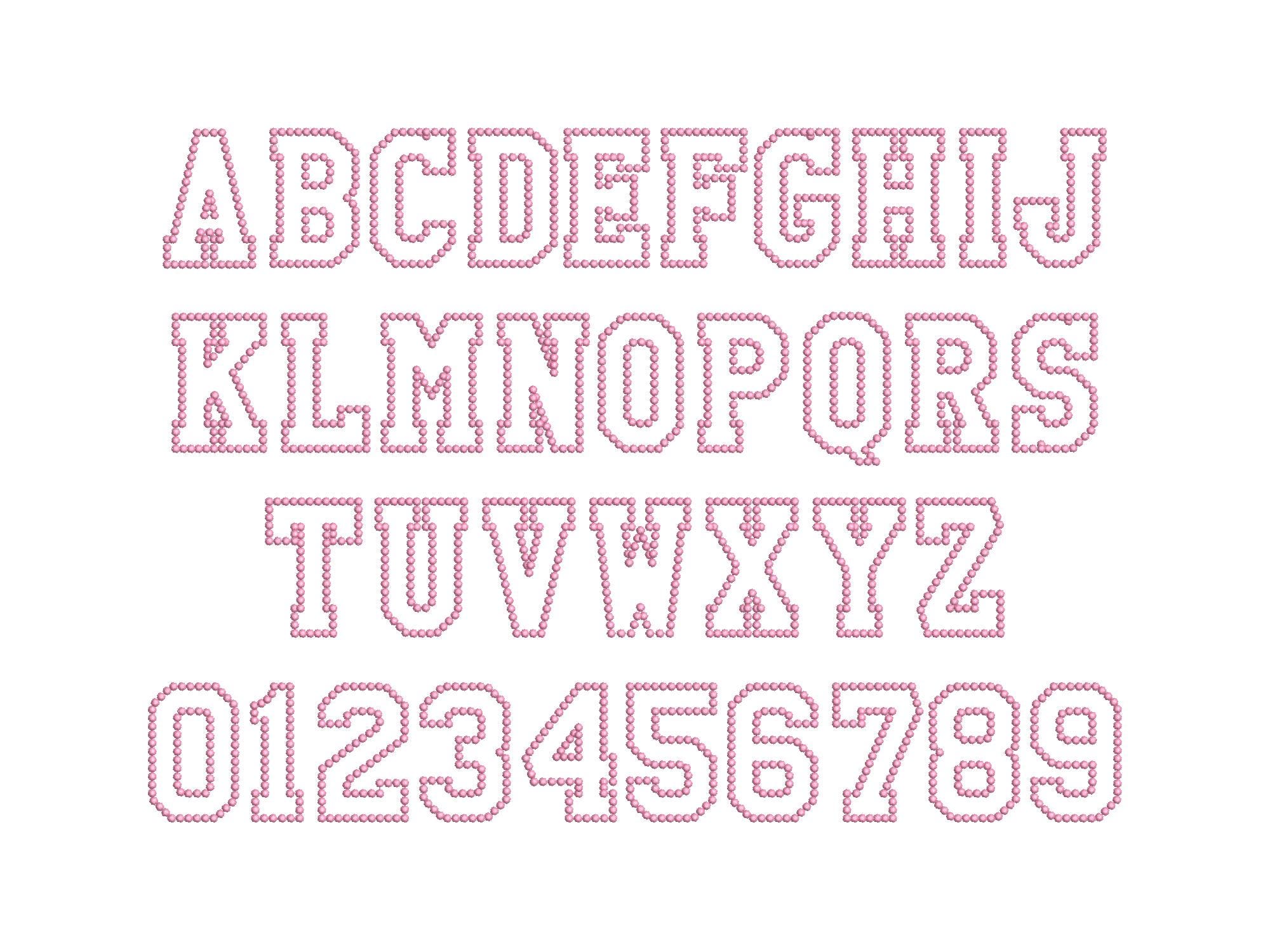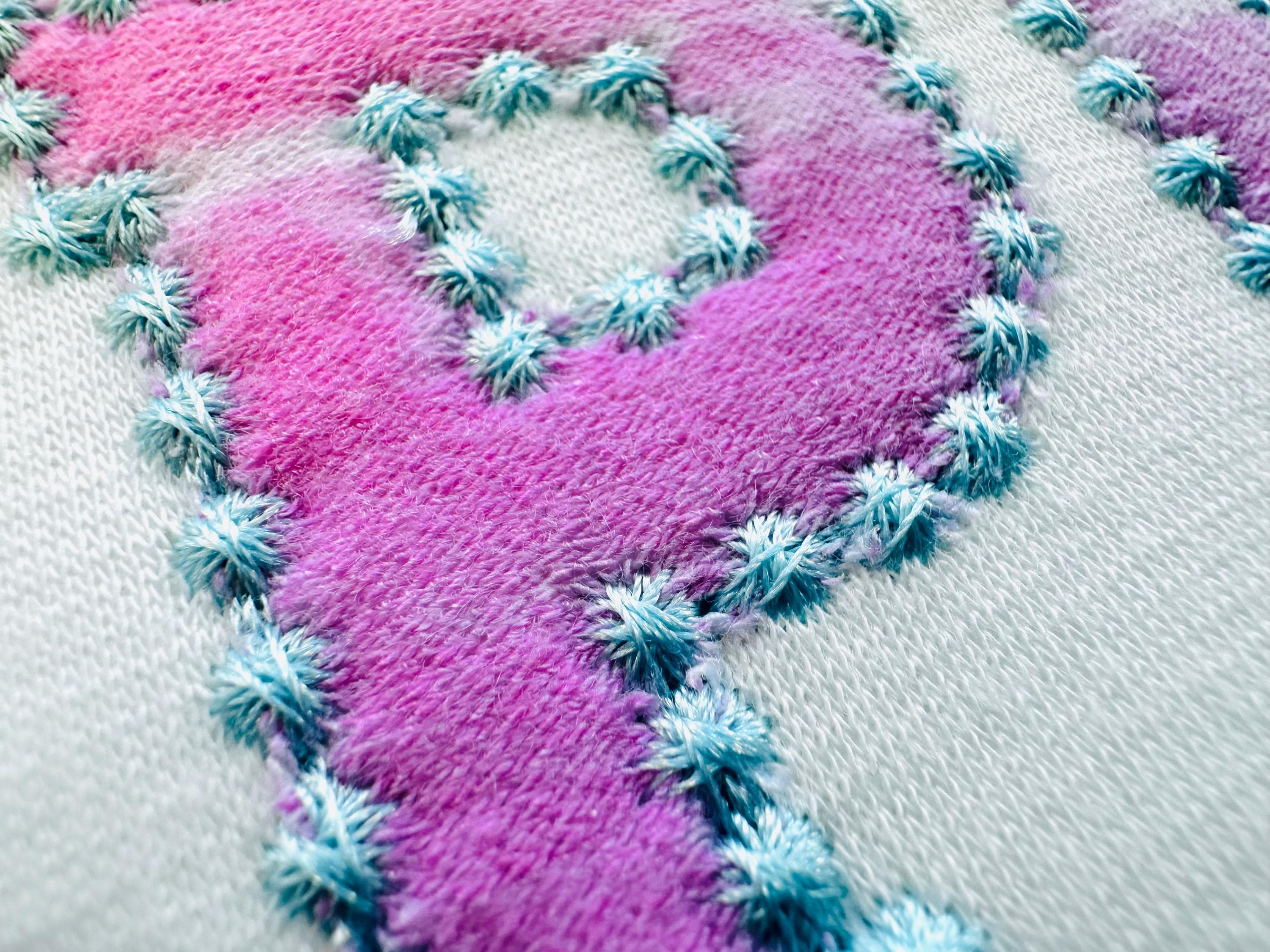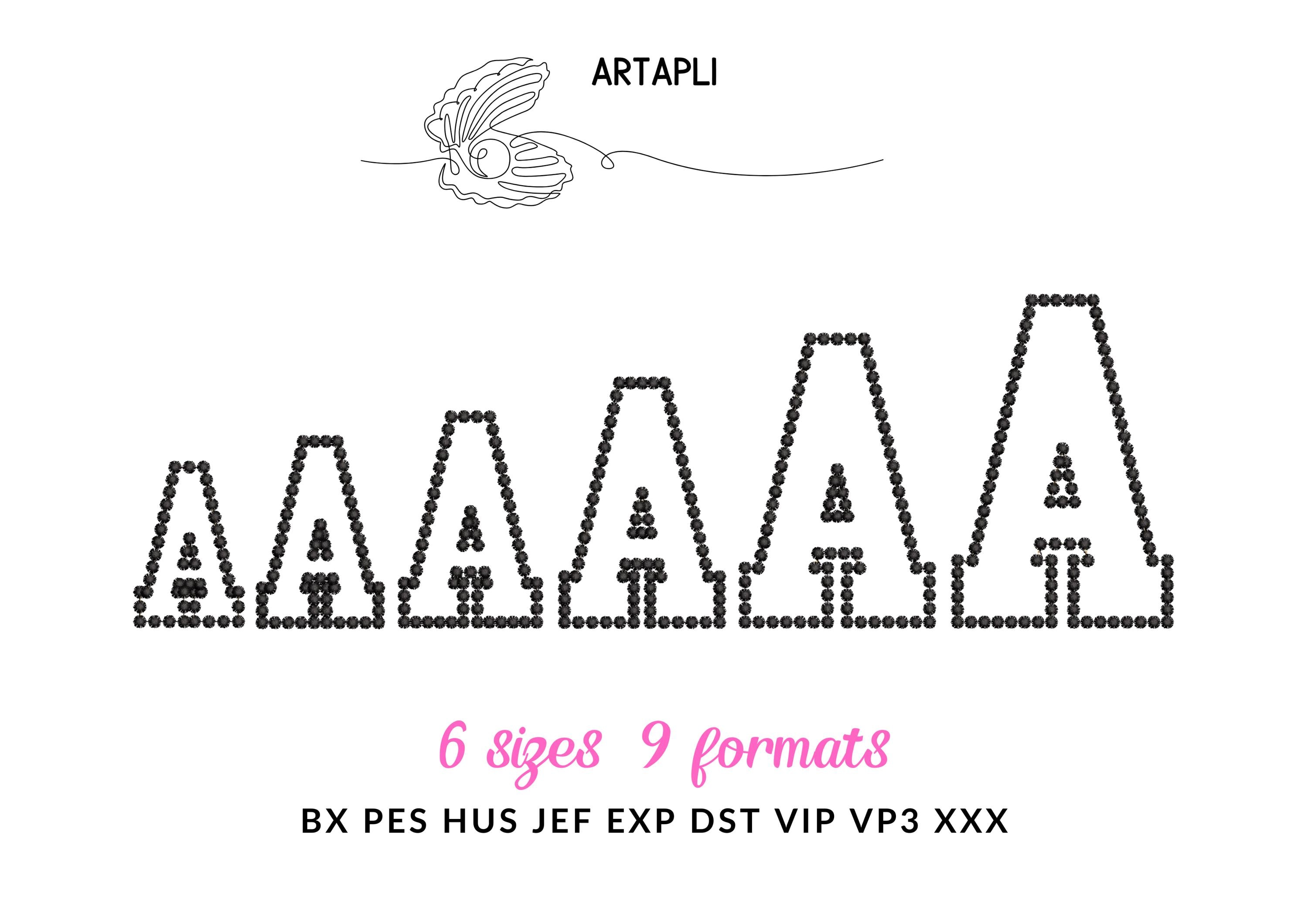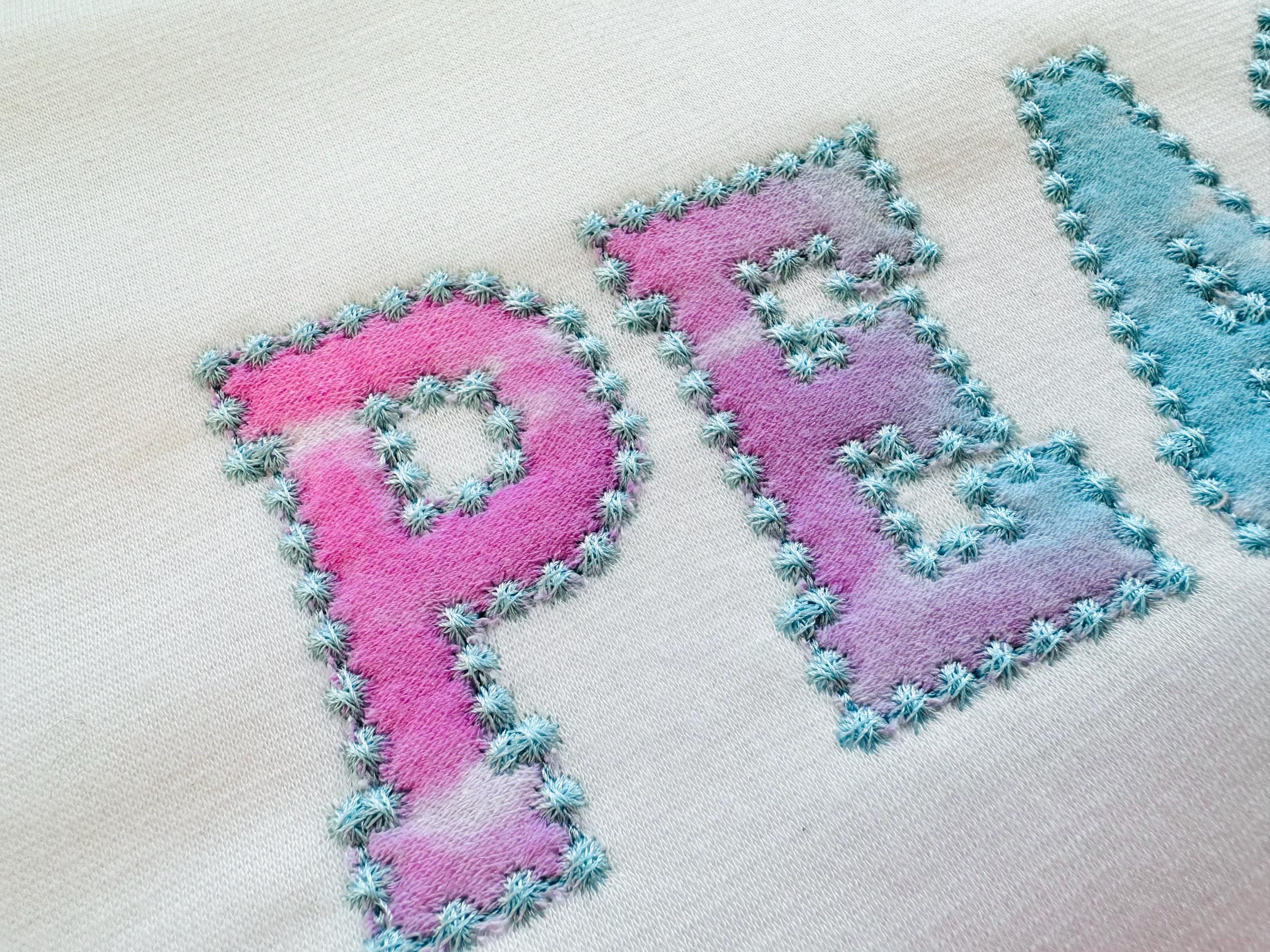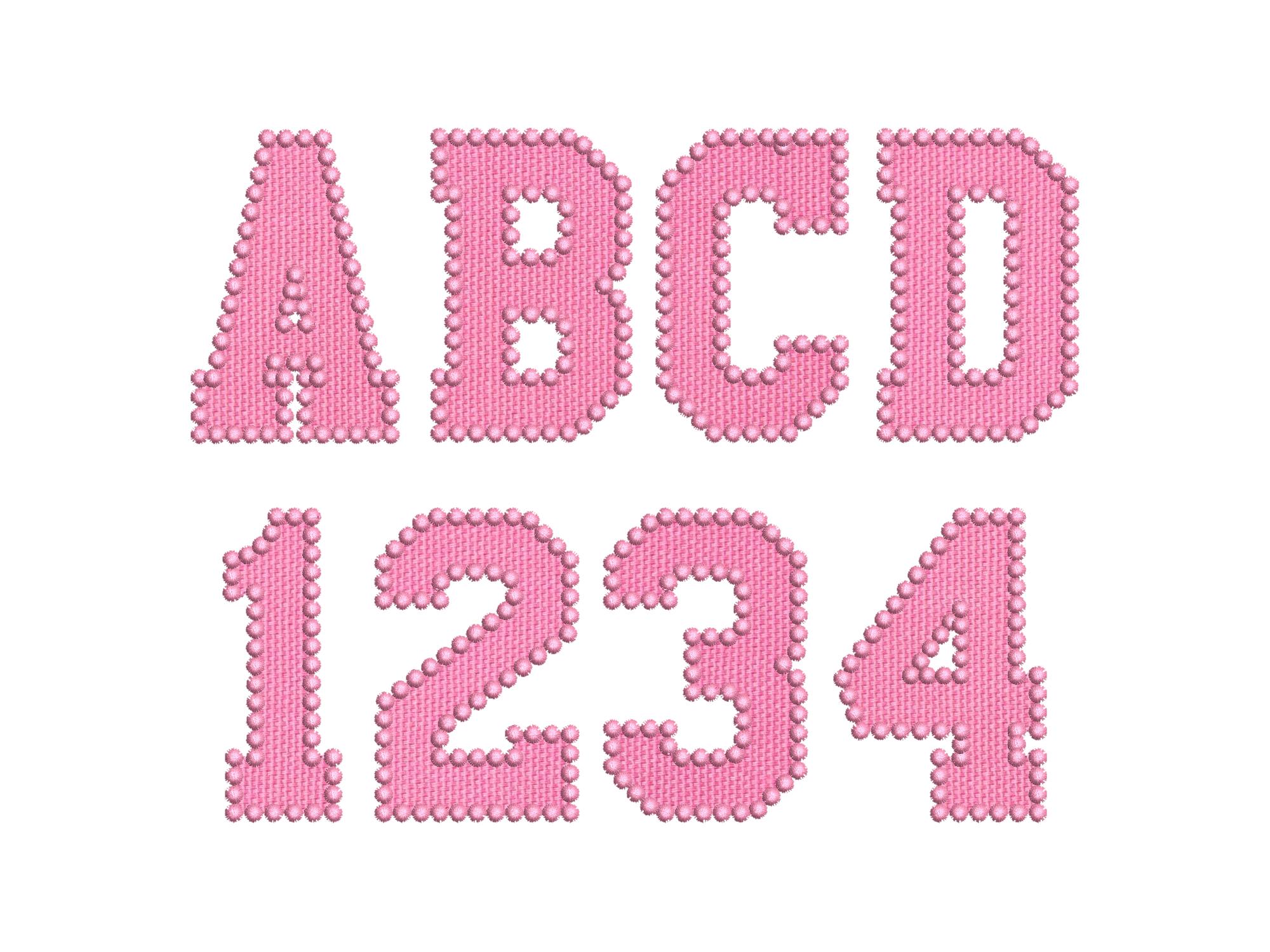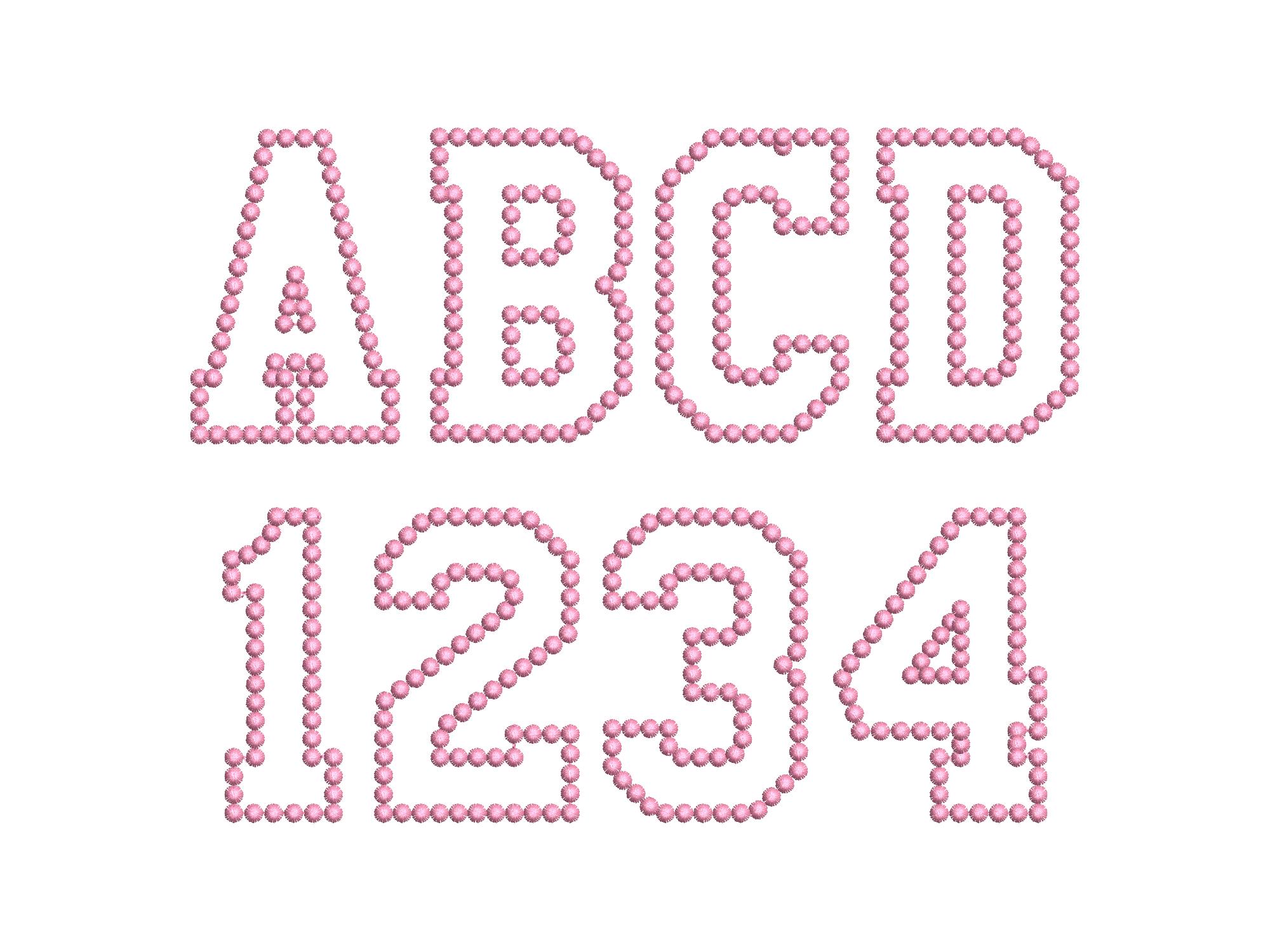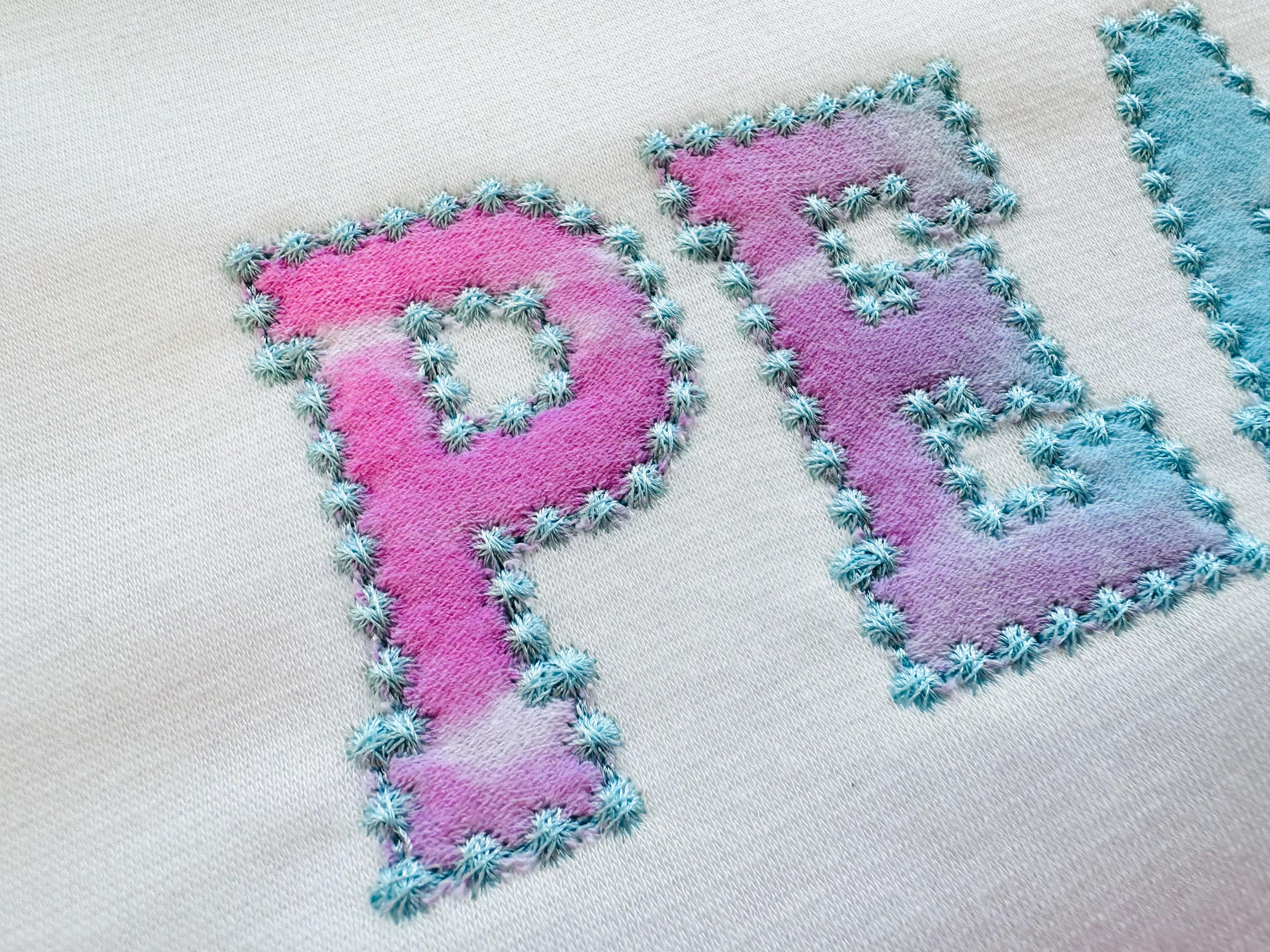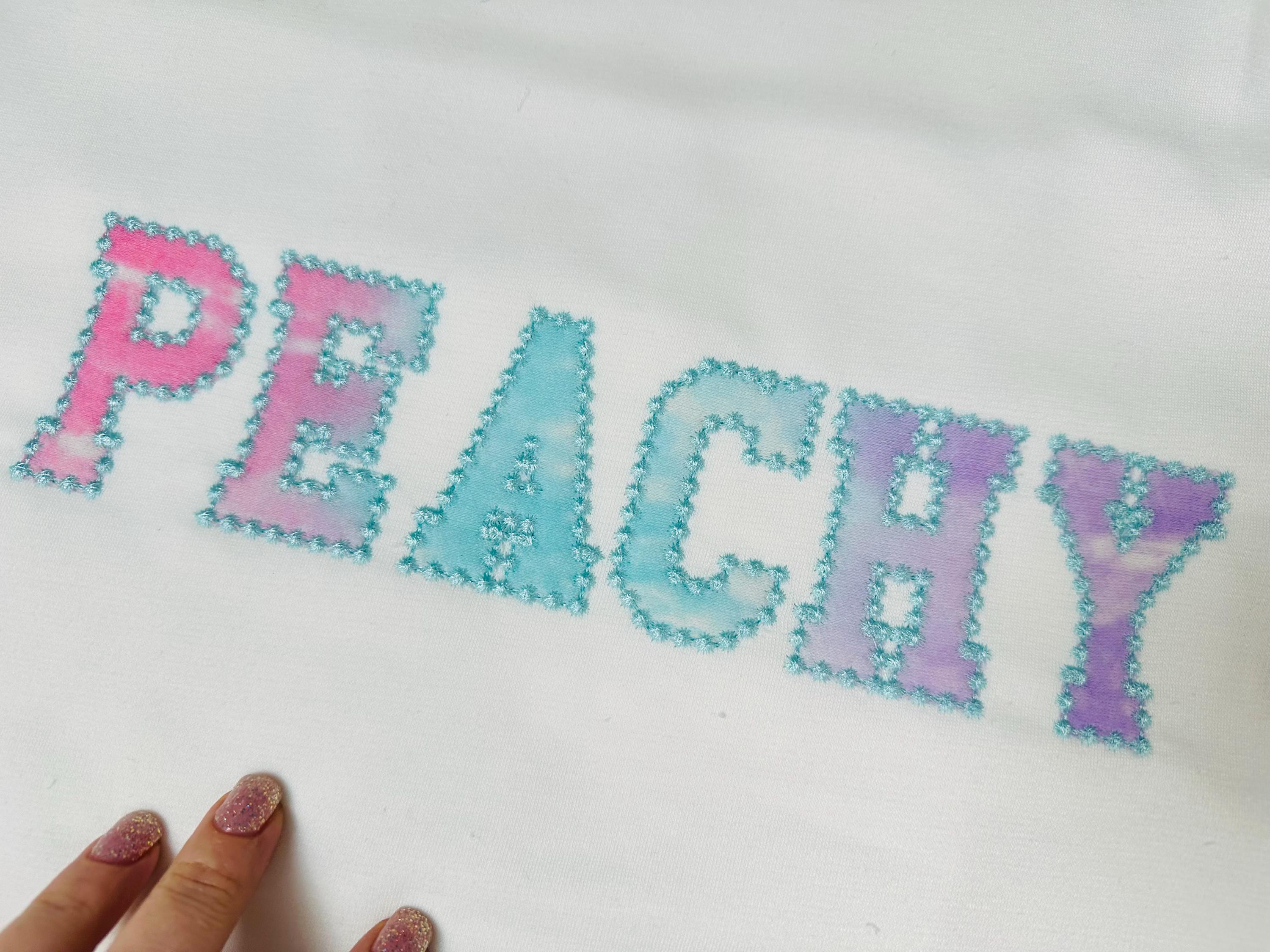
Pearl stitch outline Athletic FONT Applique Girls Sport High School Team Players machine embroidery designs alphabet letters numbers BX
Applique font
The font has a nice pearl stitch outline.
Entire alphabet of uppercase letters A-Z and numbers 0-9.